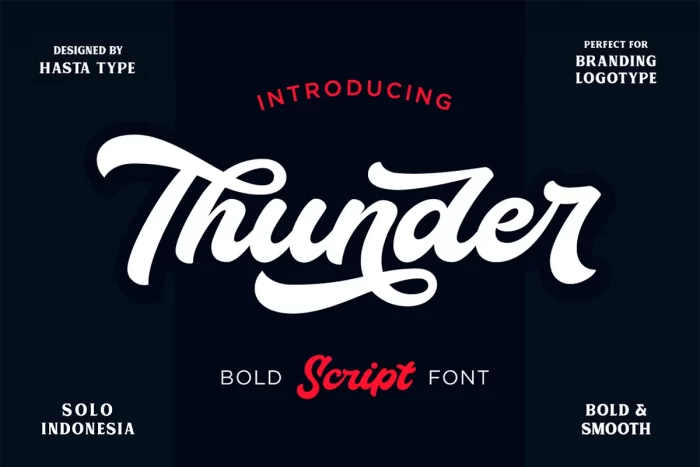
Thunder Script Font
Introducing Thunder Script, a Modern classy fonts with strong styles and circle movement. It’s allowing you to create hand lettering is an instant. The idea is to help designers to combine and incorporate together of the fonts in your design creative work. It is a hand-lettered bold and smooth script. This font is awesome for your creative project such as Logotype, Branding, Packaging, Merchandise, label, and much more.